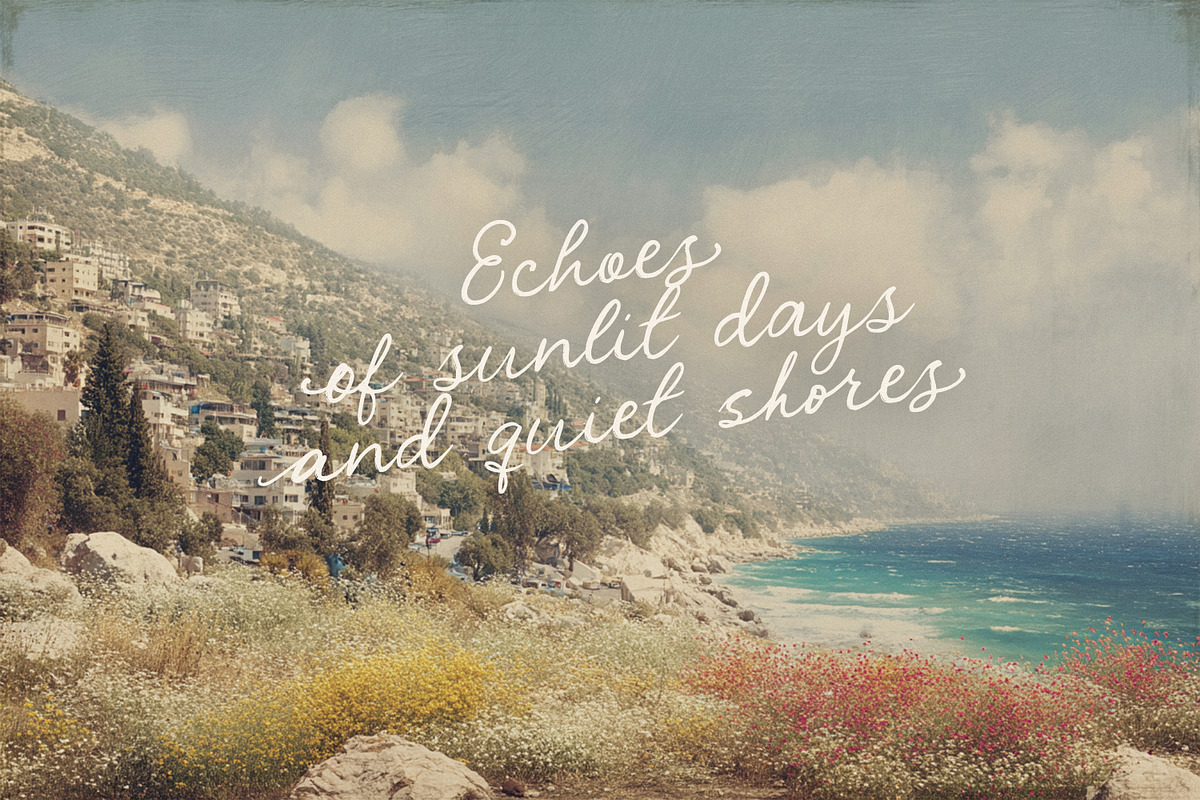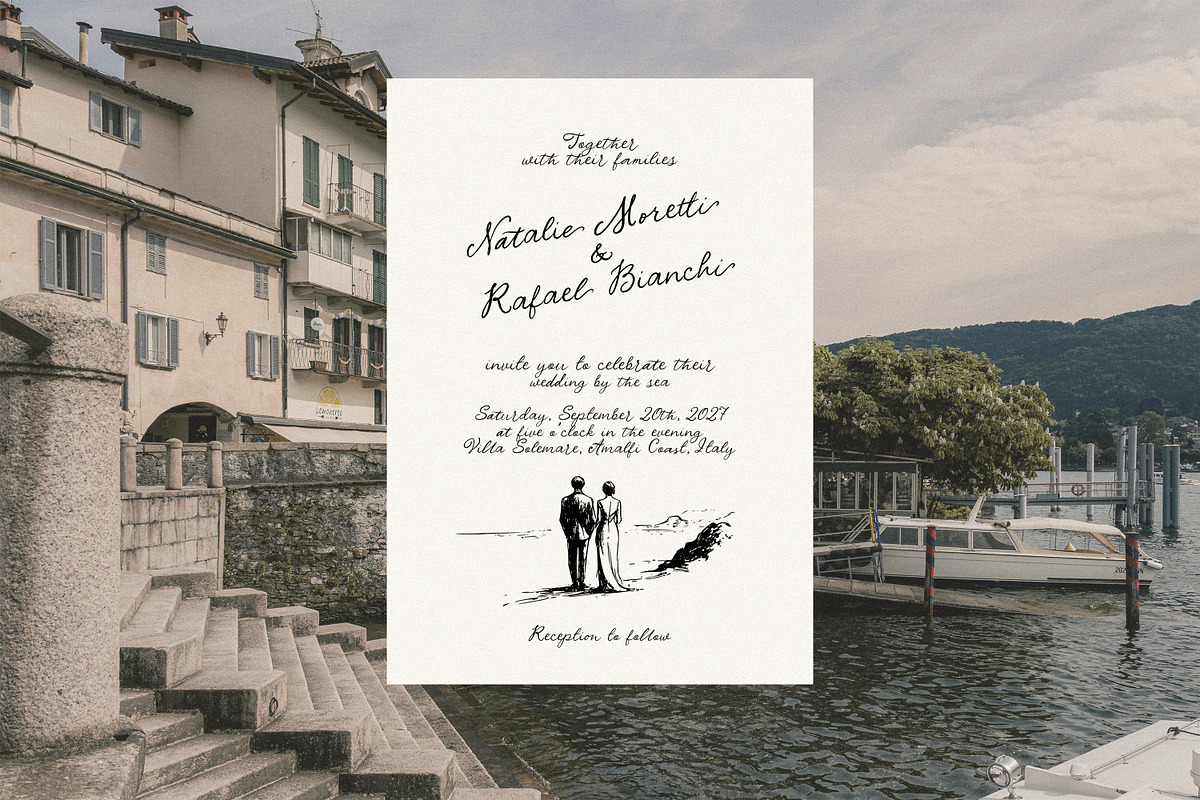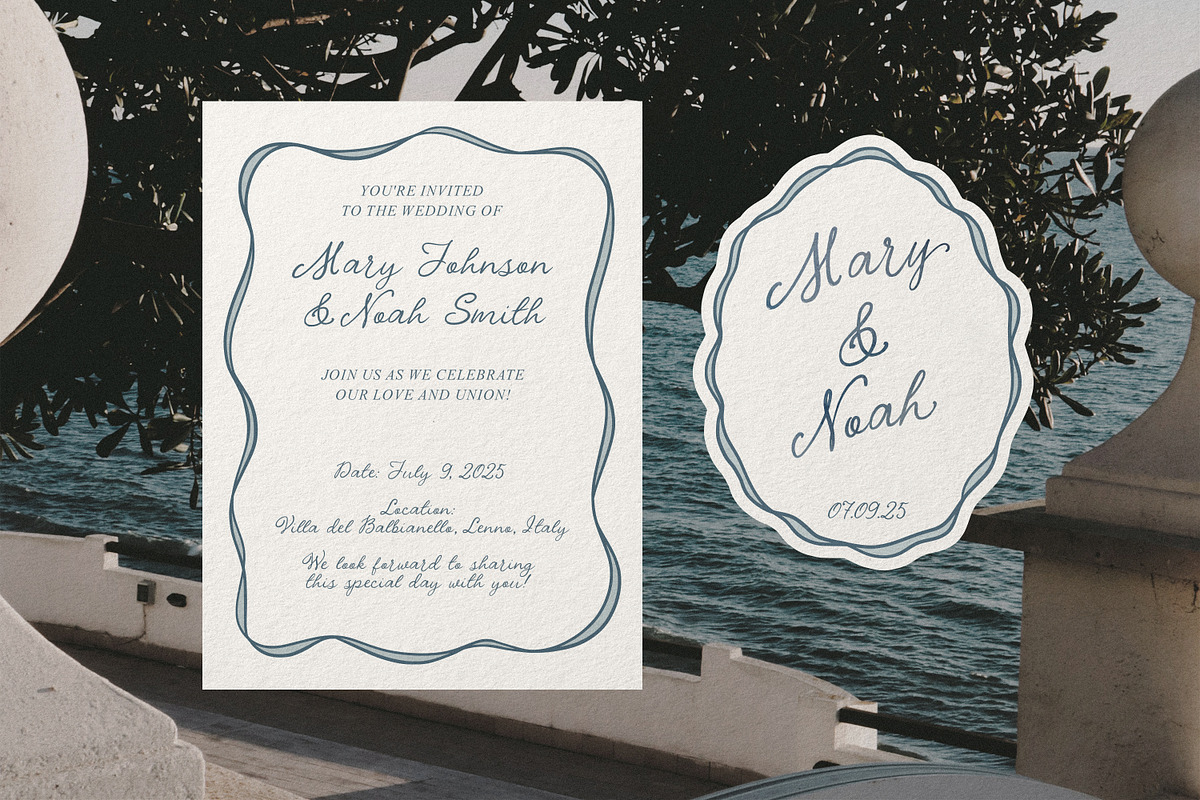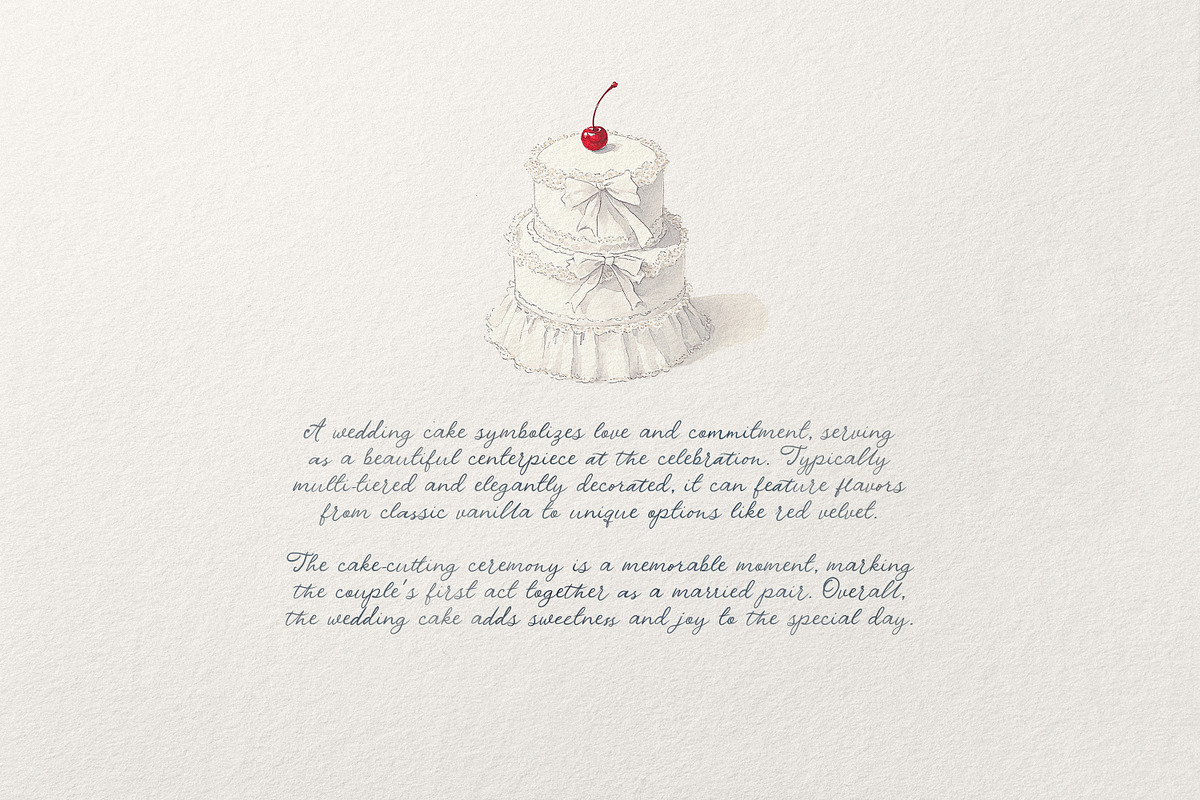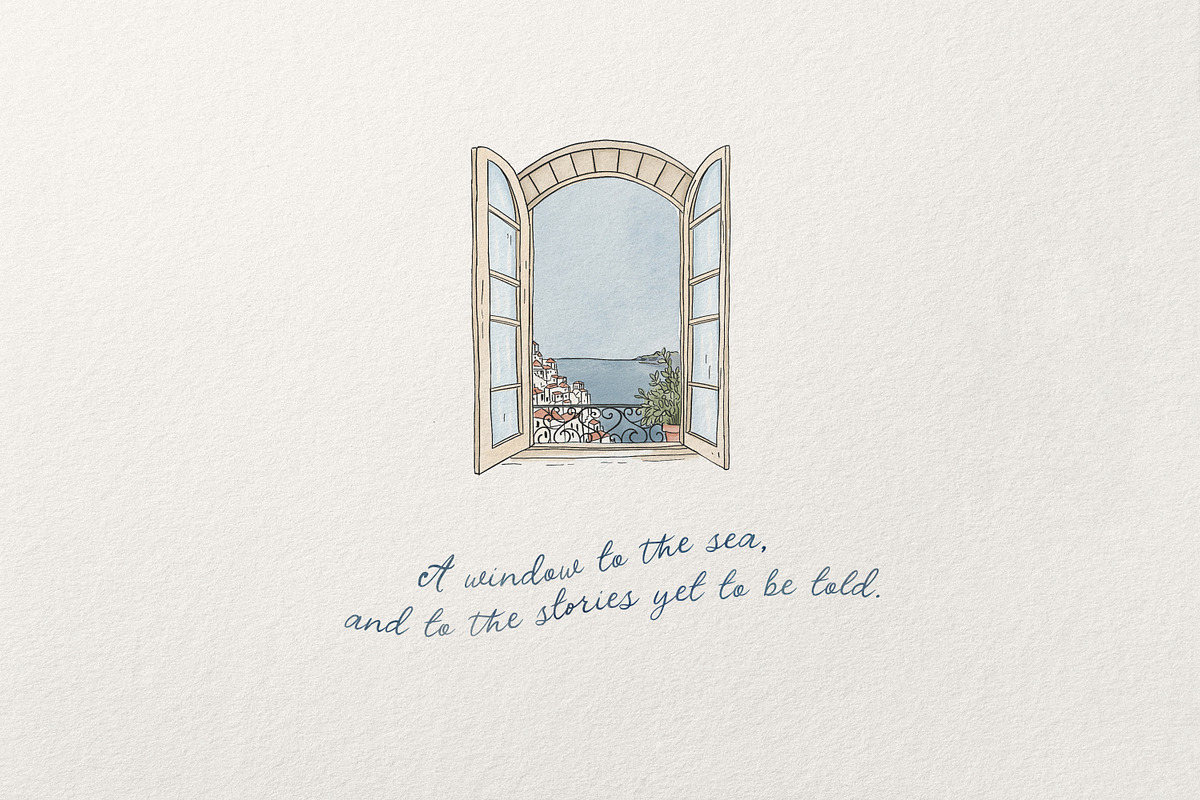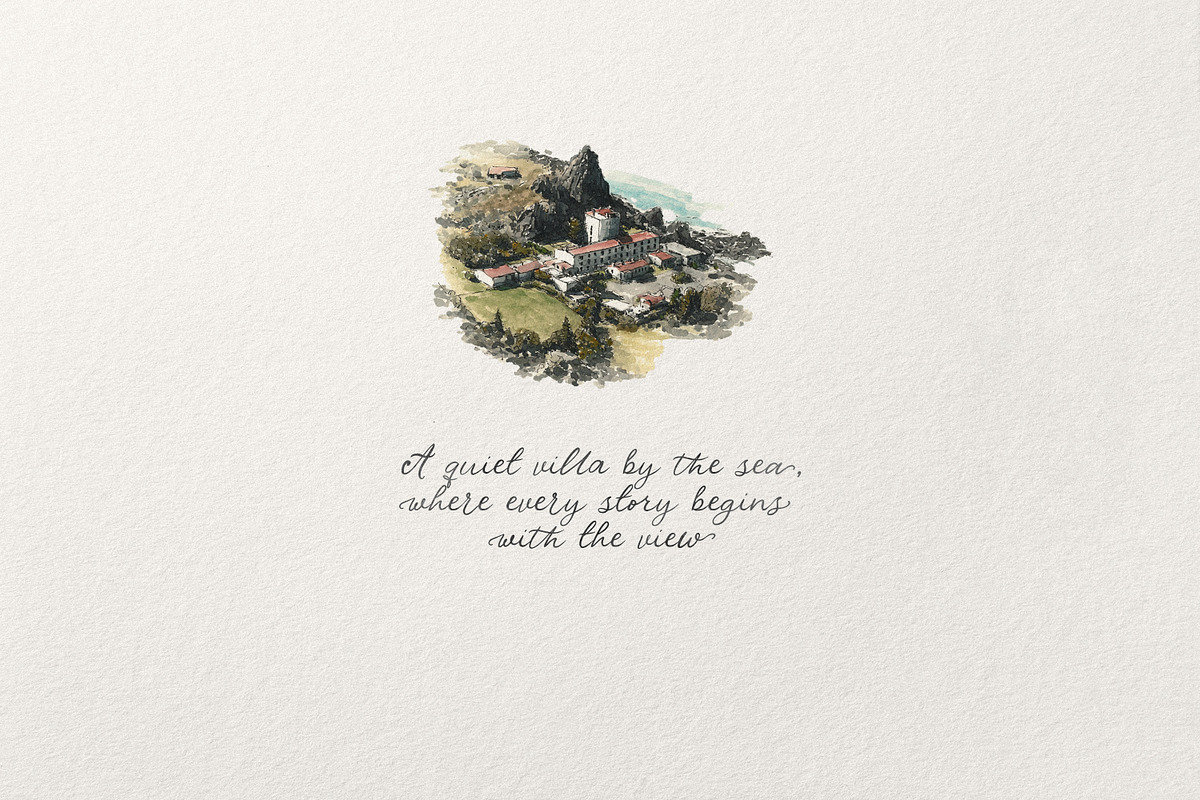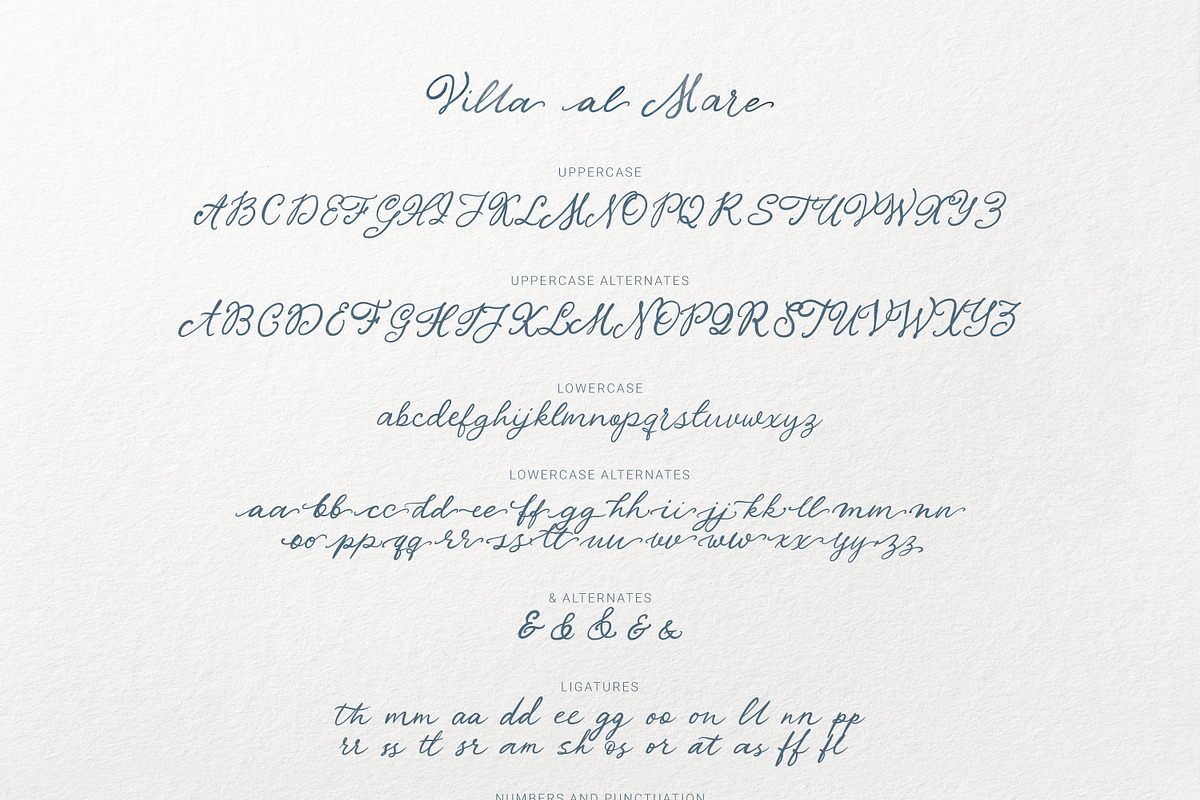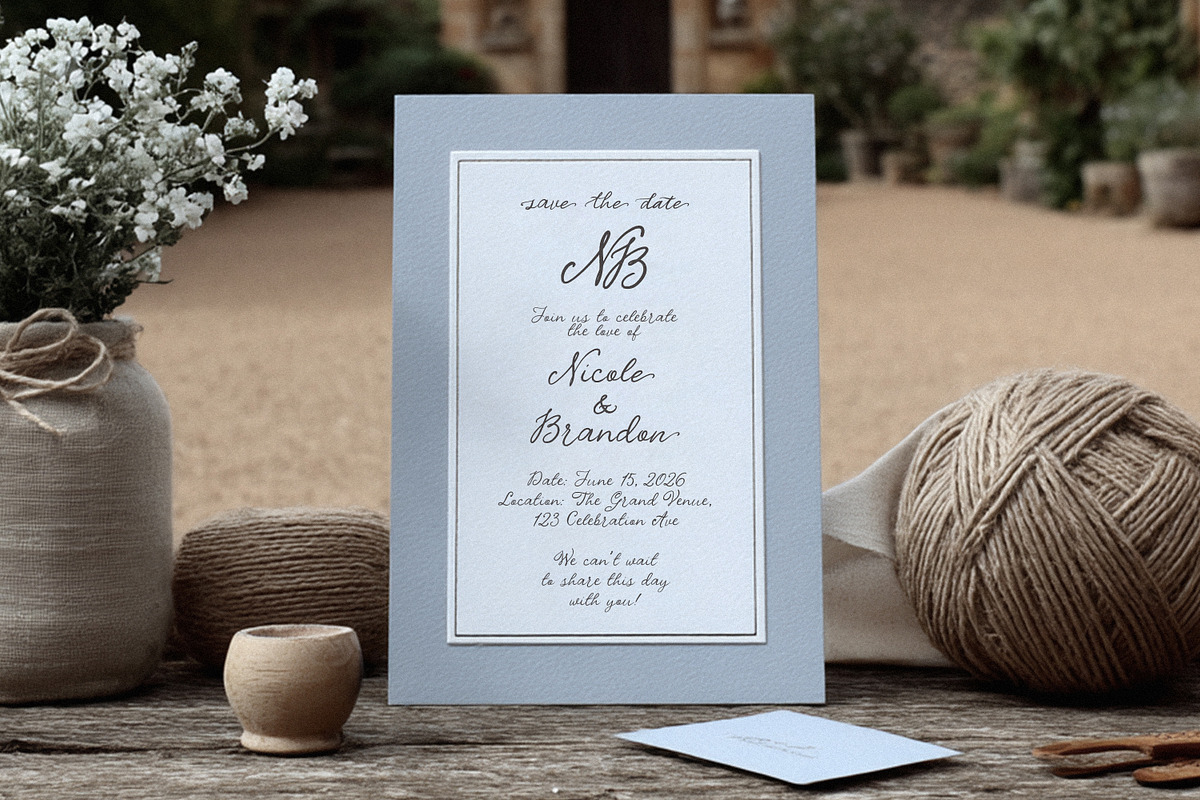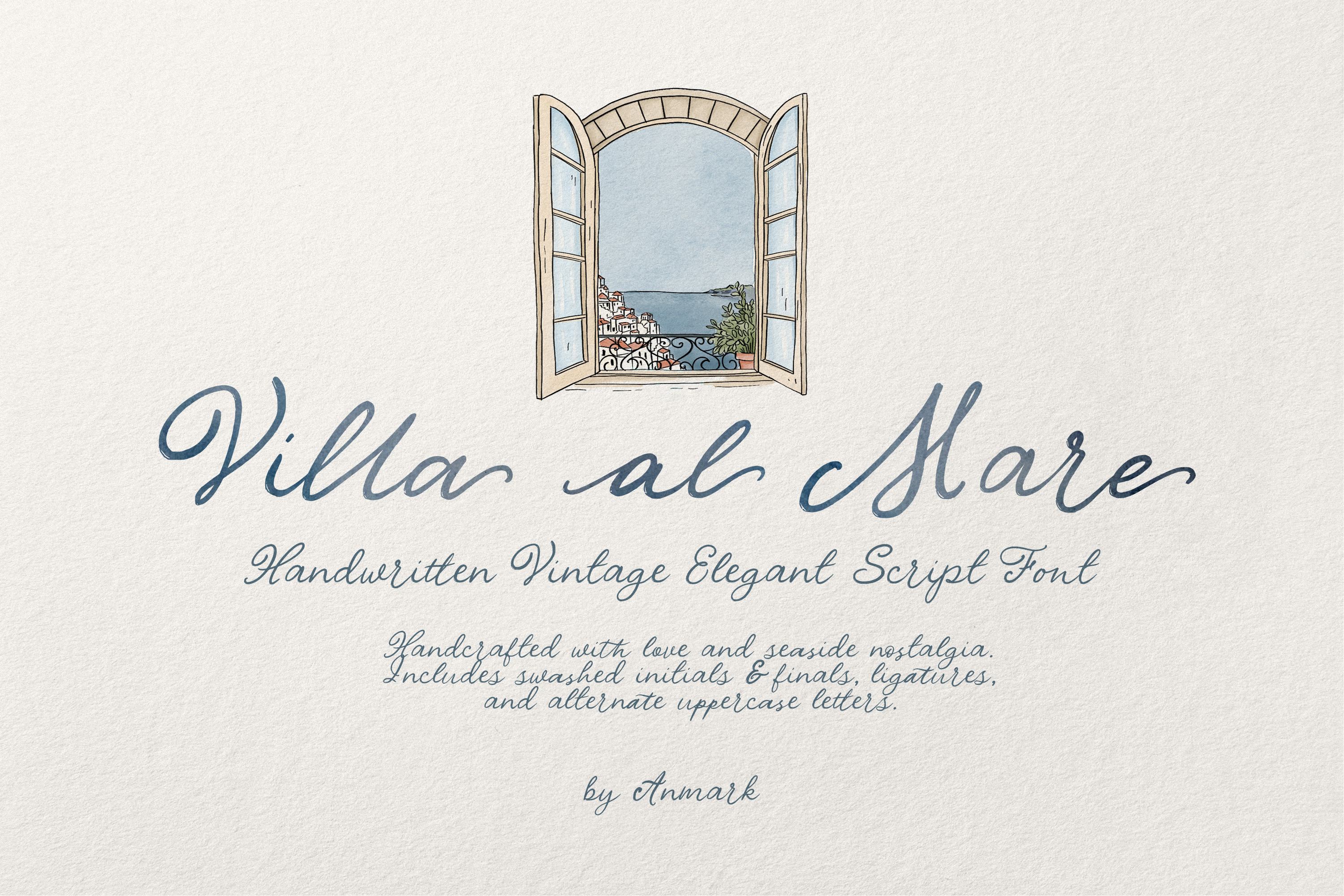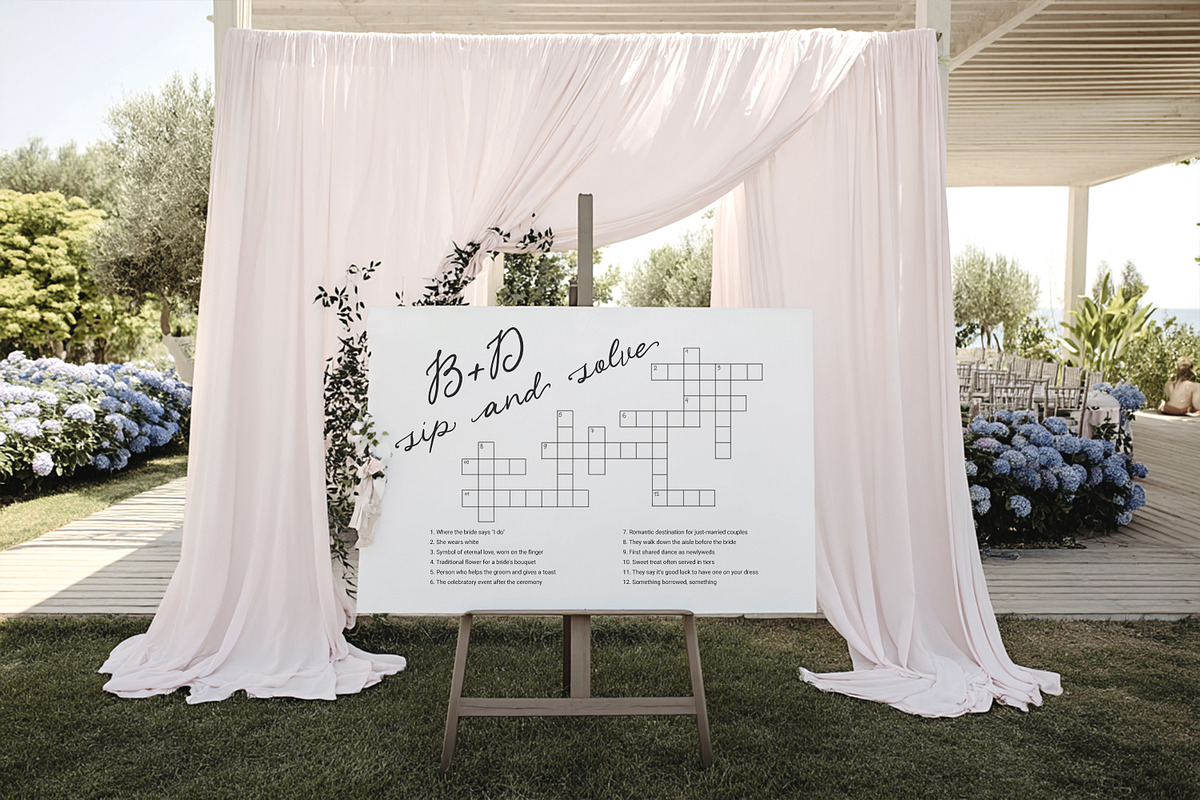
Villa al Mare | Vintage Script Font
Villa al Mare is a vintage-inspired handwritten calligraphy font with timeless elegance and a sun-drenched Mediterranean charm. Its flowing lines and soft curves bring the feeling of handwritten letters penned at a seaside villa. Elegant yet relaxed, this font is perfect for projects that call for a personal, artisanal touch.
Perfect for wedding stationery, logos and branding, packaging design, menus, love letters and greeting cards, book covers, editorial design and blog headers - wherever a touch of romance and character is needed.
- Uppercase alternatives for a custom look
- Beginning and ending lowercase swashes
- Beautiful ligatures for natural flow
- Multilingual support (including major Western European languages)
Whether you're designing a wedding invitation, branding a boutique, or crafting a coastal-inspired logo, Villa al Mare brings sophistication and warmth to every word.